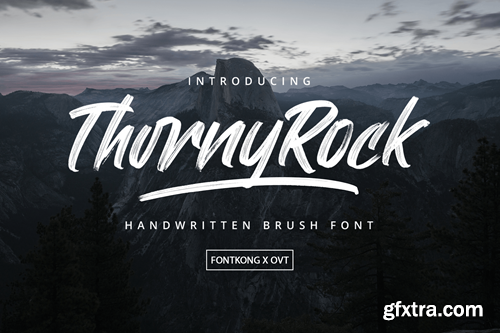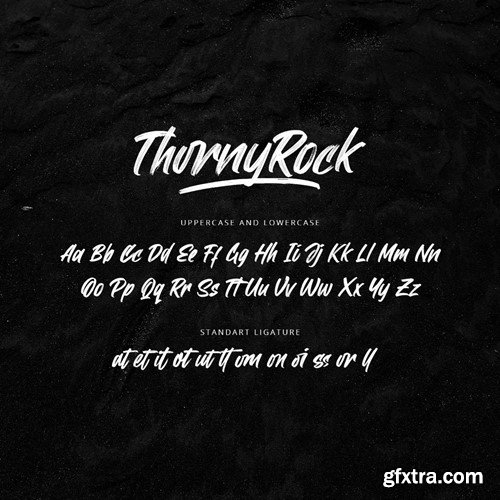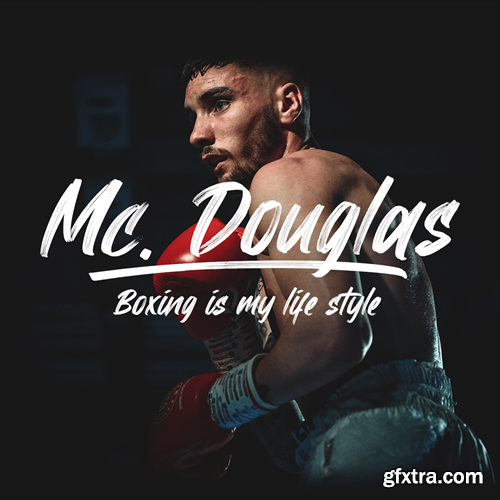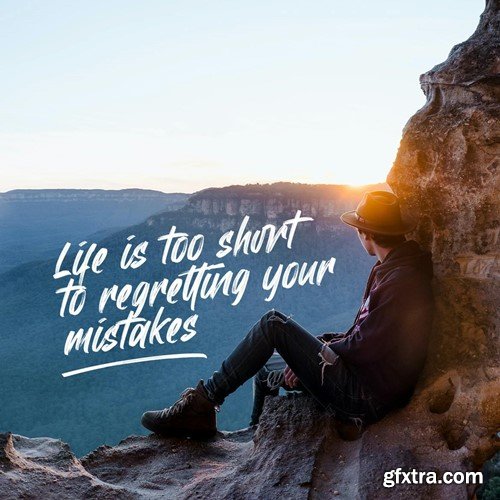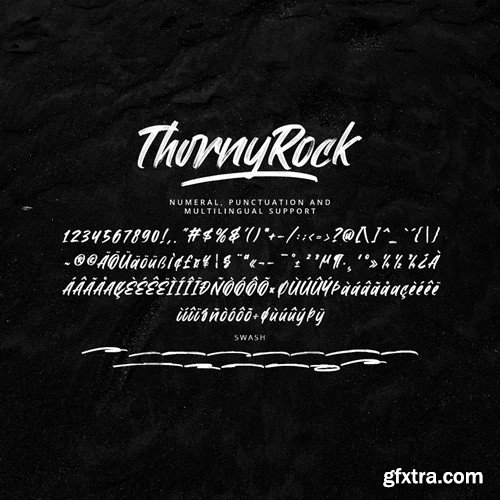
Thorny Rock - Handwritten Brush Font Introducing "Thorny Rock," a handwritten brush font that captures the rugged beauty and untamed energy of nature's edge. Perfect for designers, illustrators, and creatives who want to infuse their projects with a sense of wildness and authenticity, Thorny Rock offers a raw and expressive aesthetic. You will receive the font files in TTF, OTF, and WOFF formats Ideal for outdoor-themed designs, adventure branding, posters, social media graphics, and apparel, Thorny Rock's rough brush strokes and organic character shapes provide a dynamic and adventurous look. Each letter is meticulously crafted to convey the spontaneity and vitality of hand-drawn lettering, making your designs stand out with a natural and untamed vibe. The "Thorny Rock" font includes a full set of uppercase and lowercase letters, numbers, punctuation marks, and a variety of ligatures and stylistic alternates. This versatility allows for endless creative possibilities, whether you're creating bold headlines or adding a rugged touch to your branding materials. Capture the essence of nature's edge with Thorny Rock, the handwritten brush font that brings expressive rawness to every project.